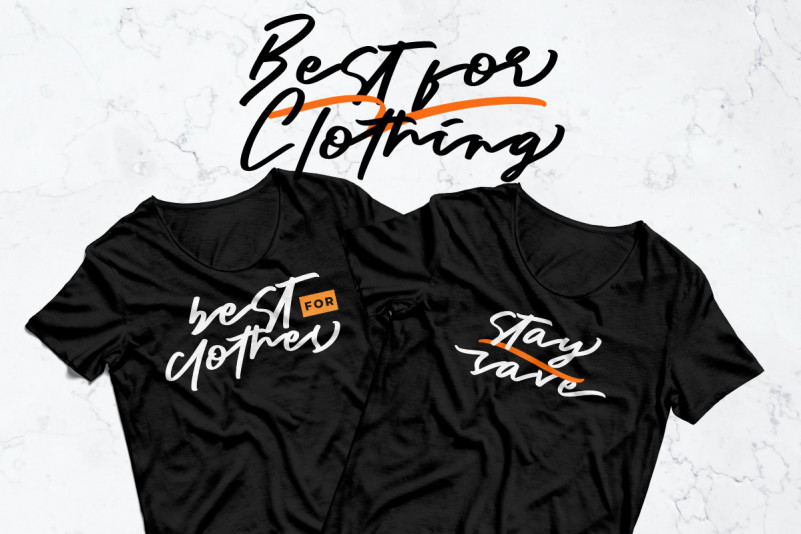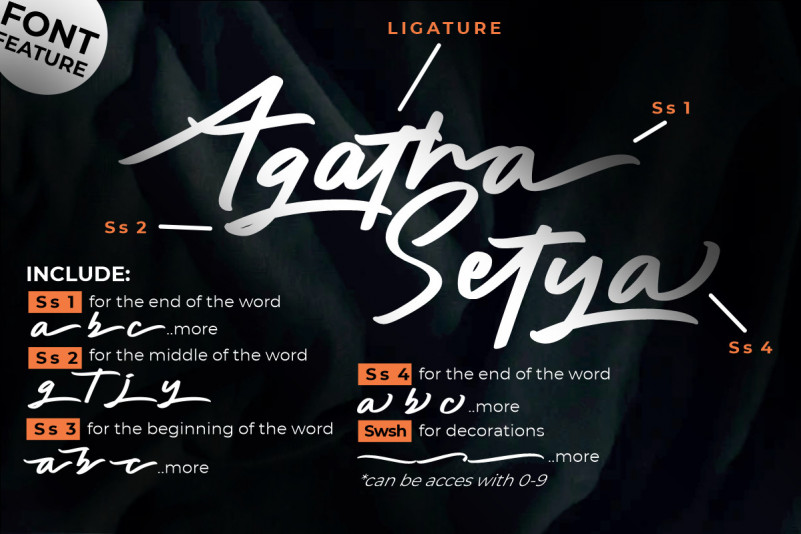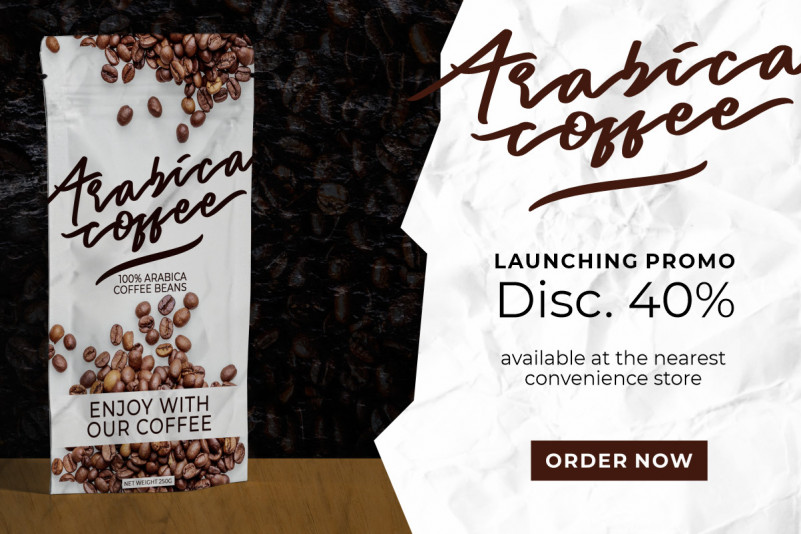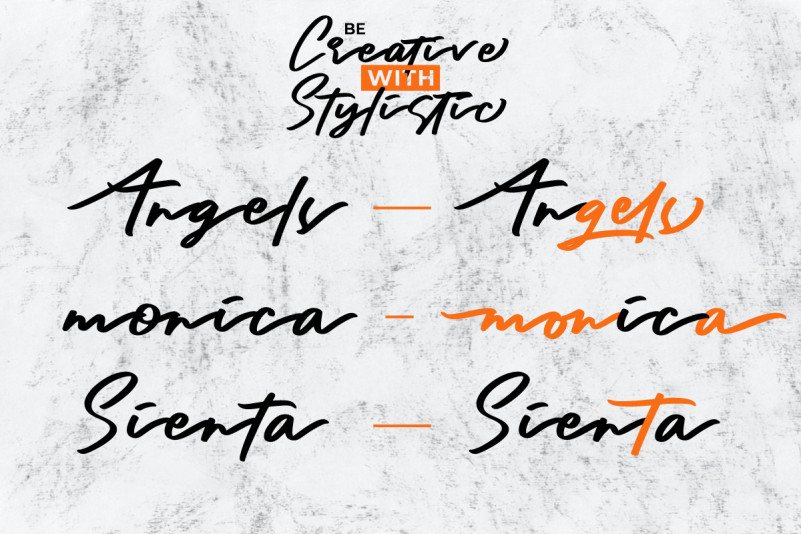
Gothic Script Font
This is a stylized script style, with a wide selection of characters. A bold script font that looks cool. Gothic is perfect for branding projects..